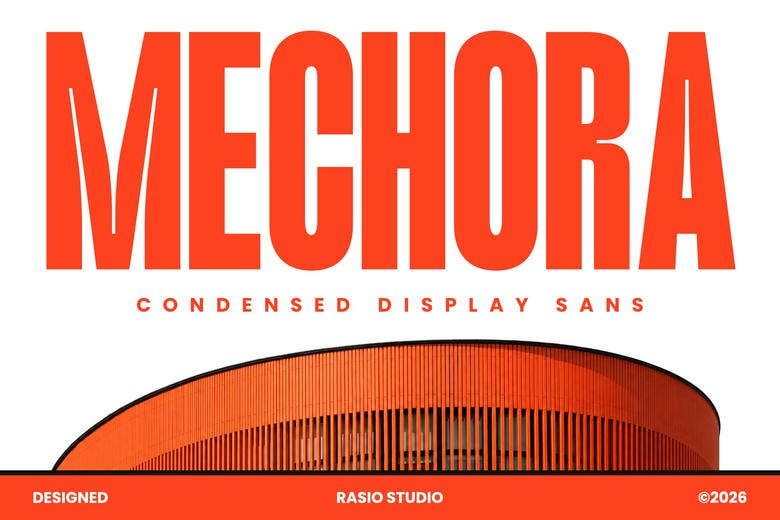
Mechora Font
Grab attention with Mechora’s bold, architectural style and modern industrial look. This condensed display sans serif has extra-tall letters, tight spacing, and crisp geometric edges. Its strong vertical design helps headlines, sports graphics, and urban branding stand out.
Mechora Condensed Display Sans Font